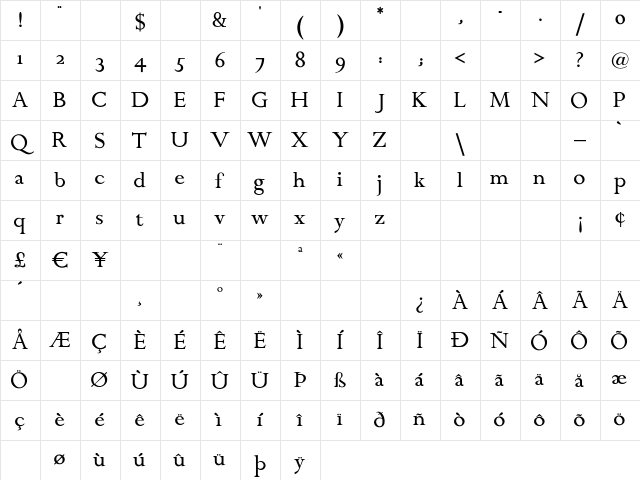
ChanticleerRoman Regular Free Font
ChanticleerRoman Regular
Design Context for ChanticleerRoman
ChanticleerRoman is a composed and adaptable typeface that performs quietly and consistently across a wide range of design contexts.